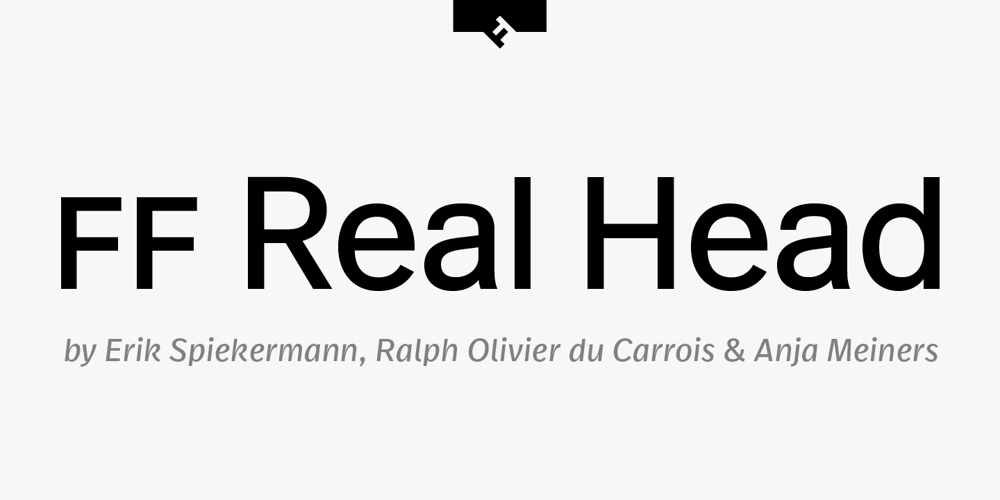
FF Real Head Font Family was designed by Erik Spiekermann, Ralph du Carrois, Anja Meiners and published by FontFont. FF Real Head contains 65 styles and family package options. FF Real is a convincing re-interpretation of the German grotesque style from between 1998 and 1908, but with much more warmth and improved legibility as well as a hint towards the warmer American grotesques. Later on, not just slanted styles, but a “proper” italic version was added inspired by the way Roman and Italic are distinguished in traditional serif faces.NEW: a specially created set of obliques were added in 2018 to give designers more design flexibility, for those looking for a less calligraphic look.In 2020 the family was extended with matching condensed weights.FF Real was originally conceived by Erik Spiekermann as one text weight and one headline weight to be used as the only faces in his biography ‘Hello I am Erik’, edited by Johannes Erler, published in 2014. While Spiekermann drew the alphabets, he passed on the font data to Ralph du Carrois and Anja Meiners who cleaned it up and completed it. In the meantime, FF Real has been extended to a family of two styles and 65 weights each.The design of FF Real is rooted in early static grotesques from the turn of the century. Several German type foundries – among them the Berlin-based foundries Theinhardt and H. Berthold AG – released such designs between 1898 and 1908. The semi-bold weight of a poster-size typeface that was lighter than most of the according semi-bolds in metal type at the time, gave the impetus to FF Real’s regular weight. In the words of Spiekermann, the historical example is “the real, non-fake version, as it were, the royal sans serif face“, thus giving his new typeface the name “Real” (which is also in keeping with his four-letter names, i.e. FF Meta, FF Unit).FF Real is a convincing re-interpretation of the German grotesque style, but with much more warmth and improved legibility. With a hint towards the warmer American grotesques, Spiekermann added those typical Anglo-American features such as a three-story ‘g’ and an ‘8’ with a more defined loop. To better distinguish characters in small text sizes, FF Real Text comes in old style figures, ‘f’ and ‘t’ are wider, the capital ‘I’ is equipped with serifs, as is the lowercase ‘l’. What’s more, i-dots and all punctuation are round.